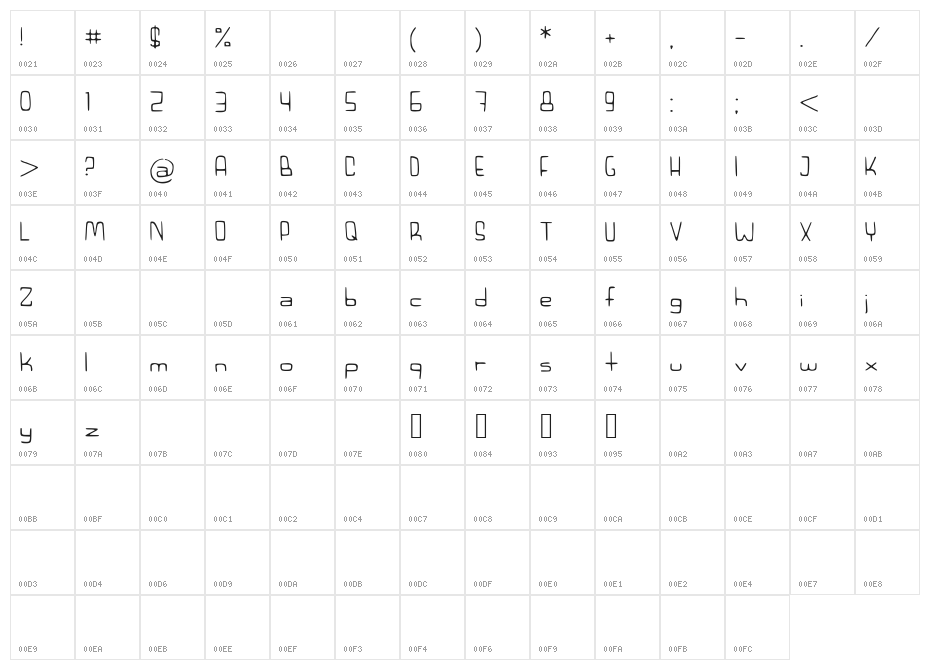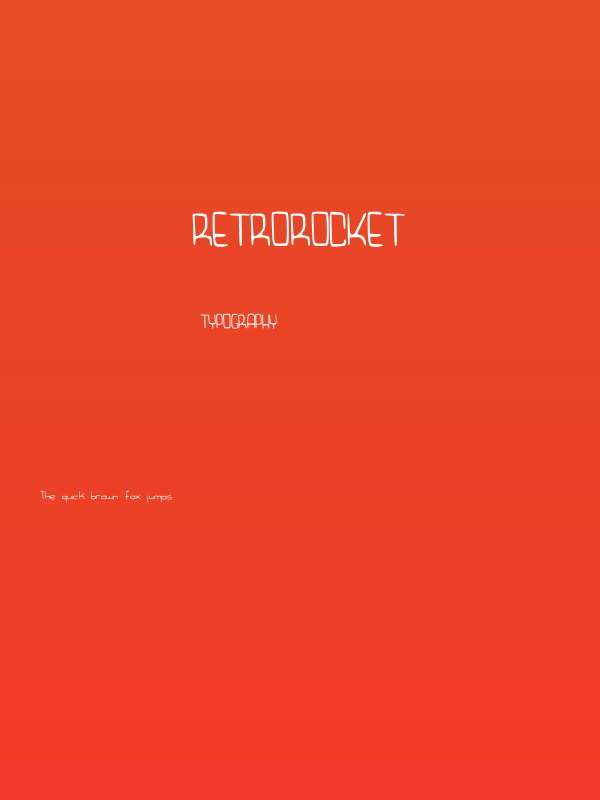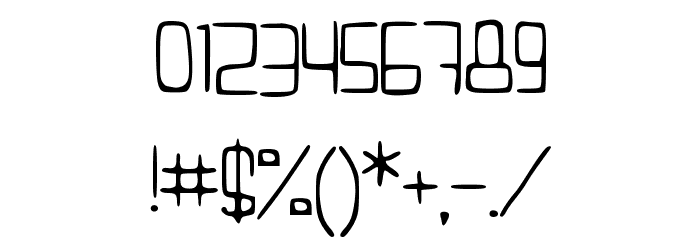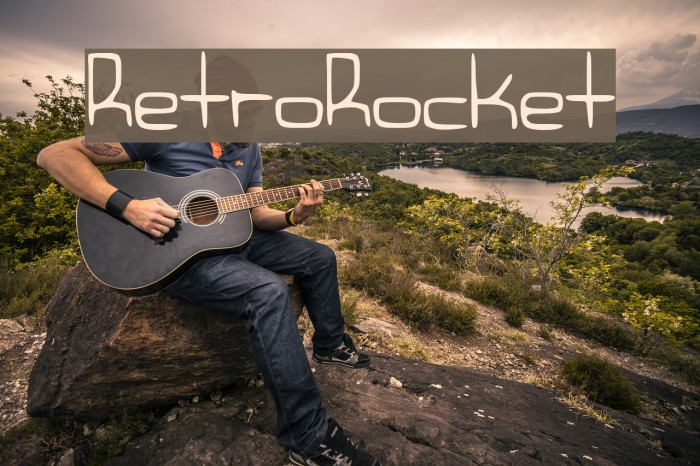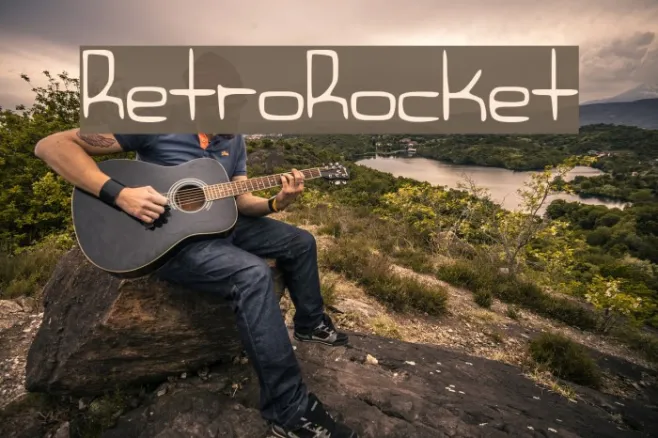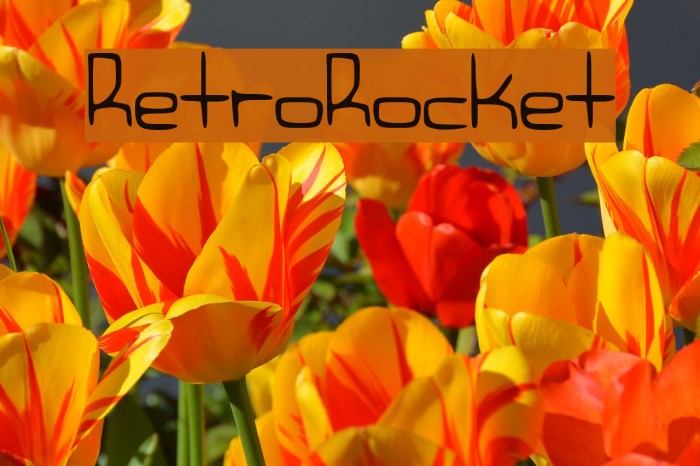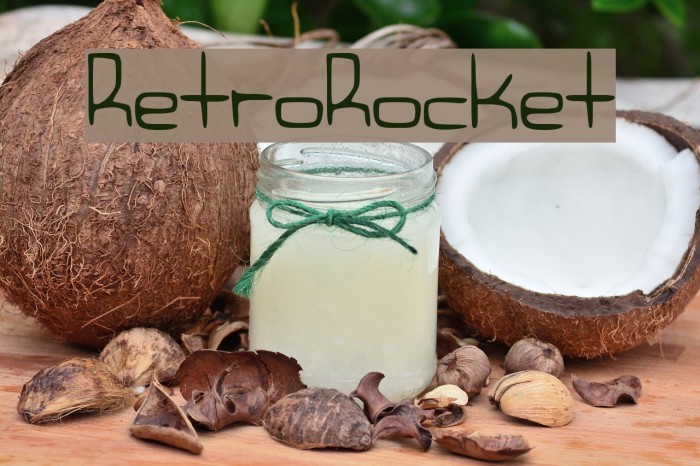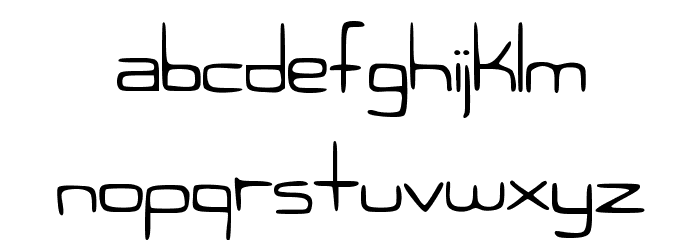
RetroRocket Font
RetroRocket Description
This font features a unique, retro-futuristic design with elongated, narrow characters that evoke a sense of nostalgia and modernity. The uppercase letters are tall and slender, with rounded edges that soften the overall appearance. The lowercase letters maintain a consistent style, with a slightly playful touch in their curves and lines. Numbers are clear and easily distinguishable, while the special characters complement the overall aesthetic with their quirky yet cohesive design. The font's distinct style makes it ideal for projects that require a vintage yet contemporary feel.
| Overall Style | Retro, Modern |
| Proposed Projects | Ideal for retro-themed posters, sci-fi book covers, vintage branding, and creative digital media. |